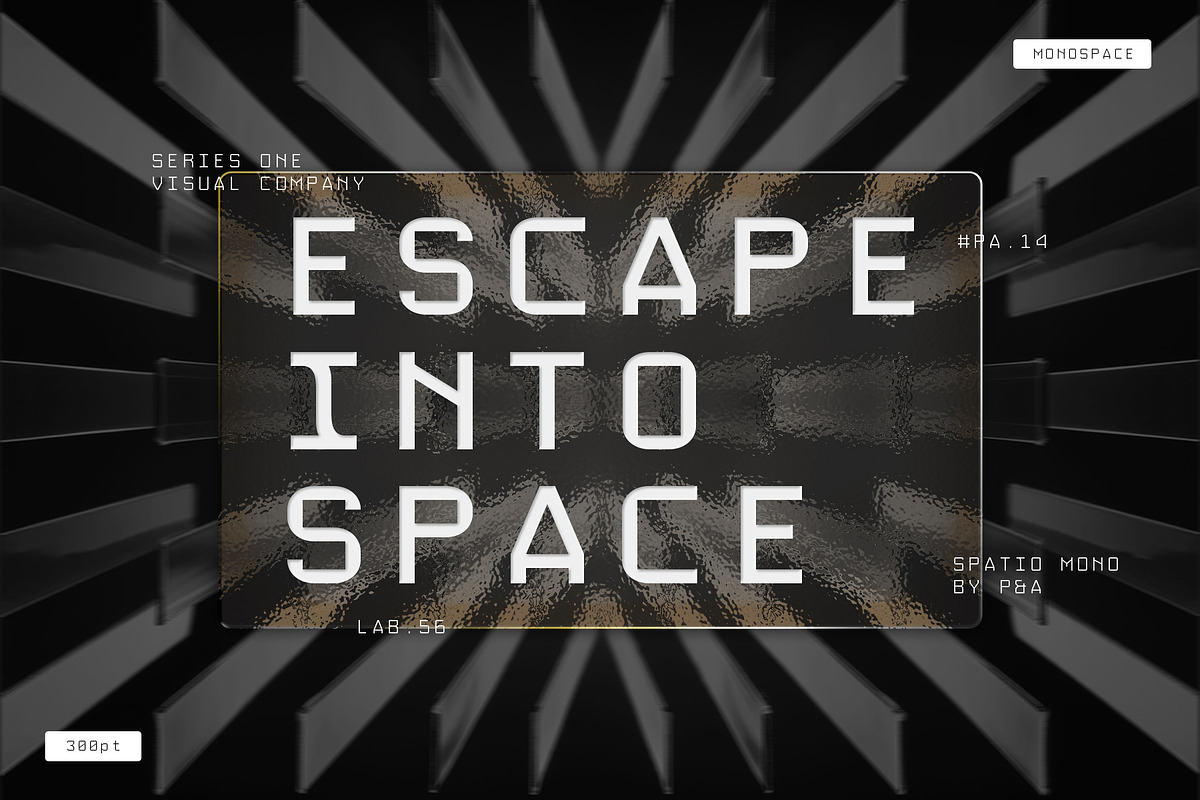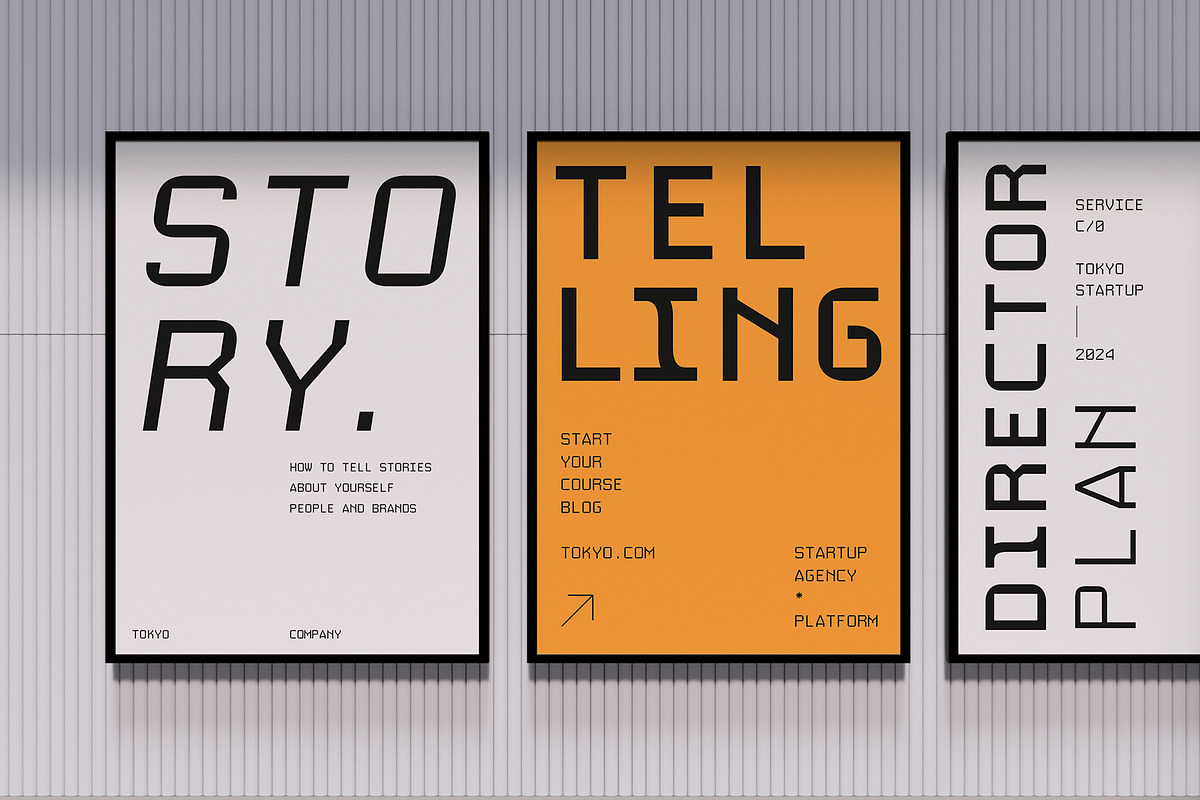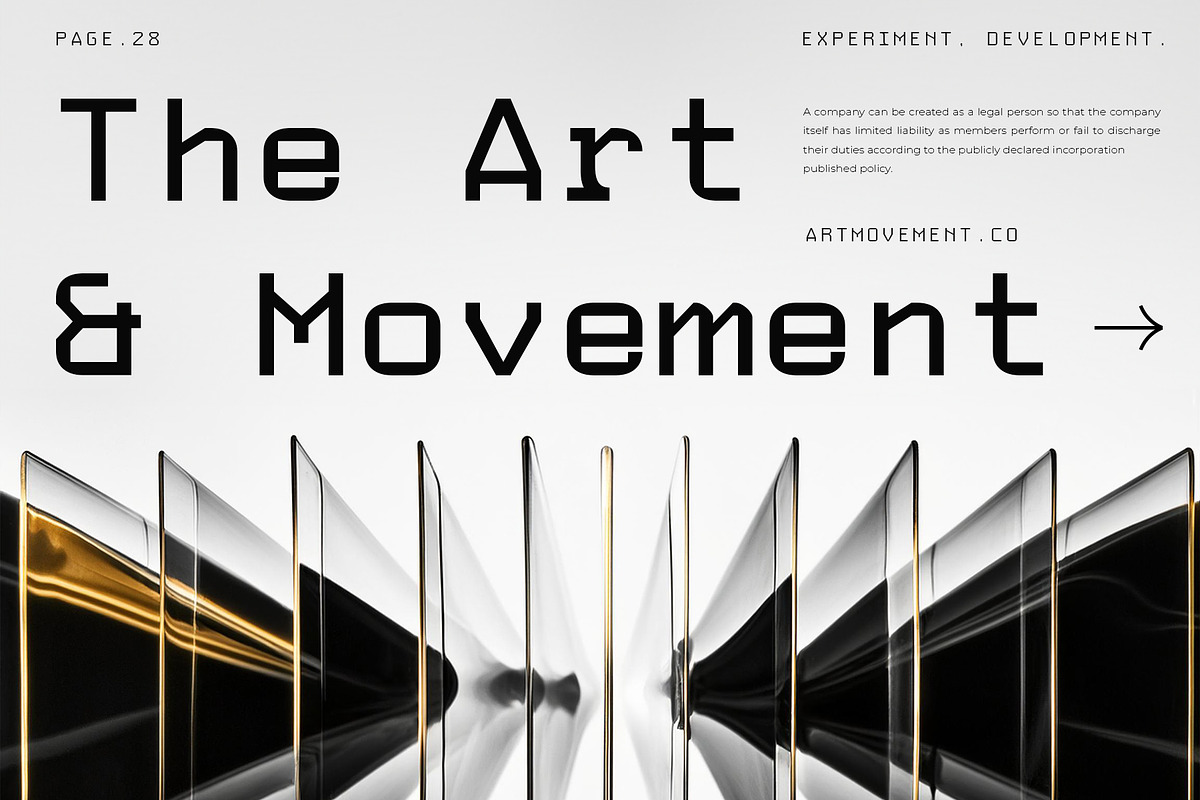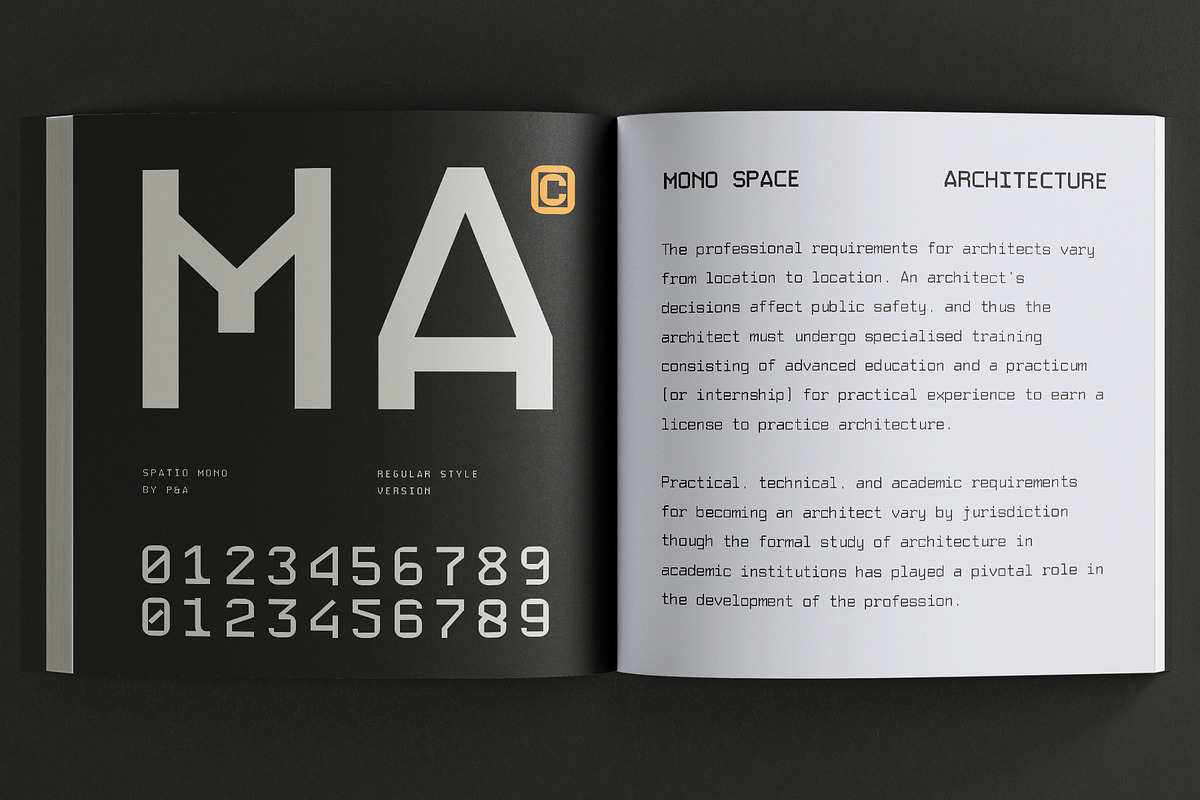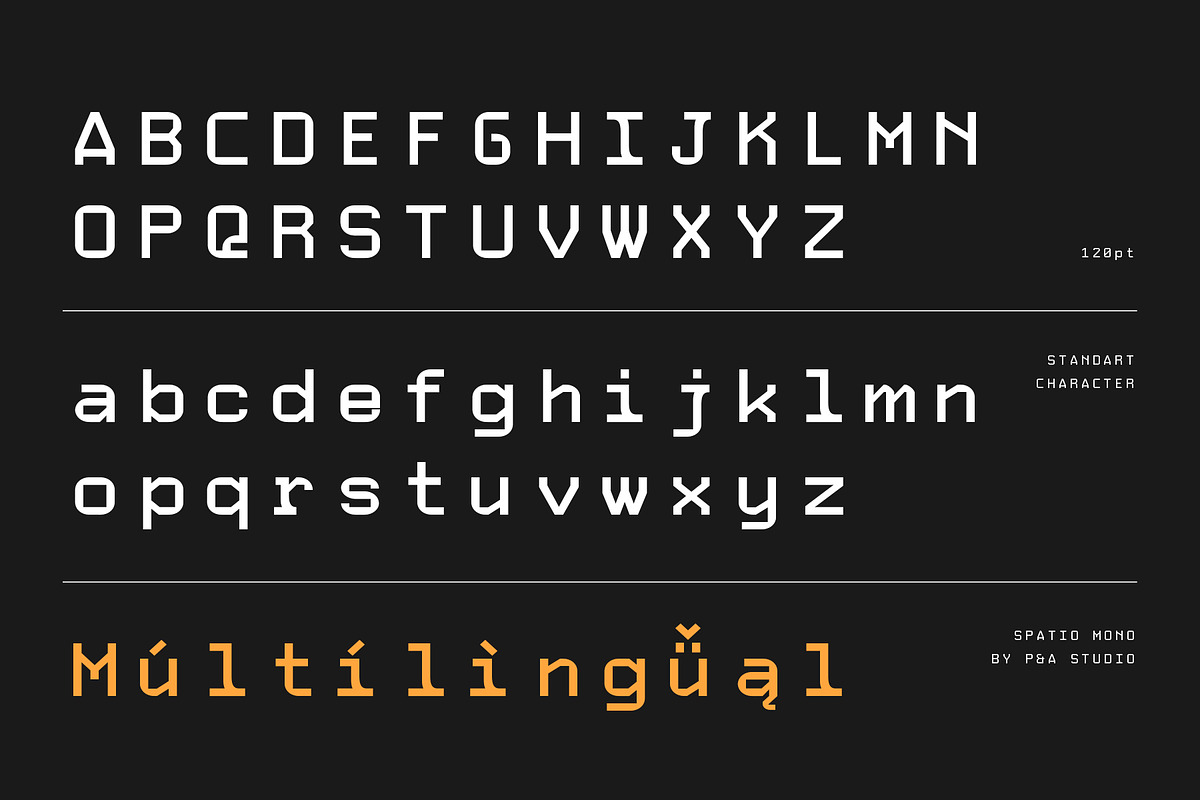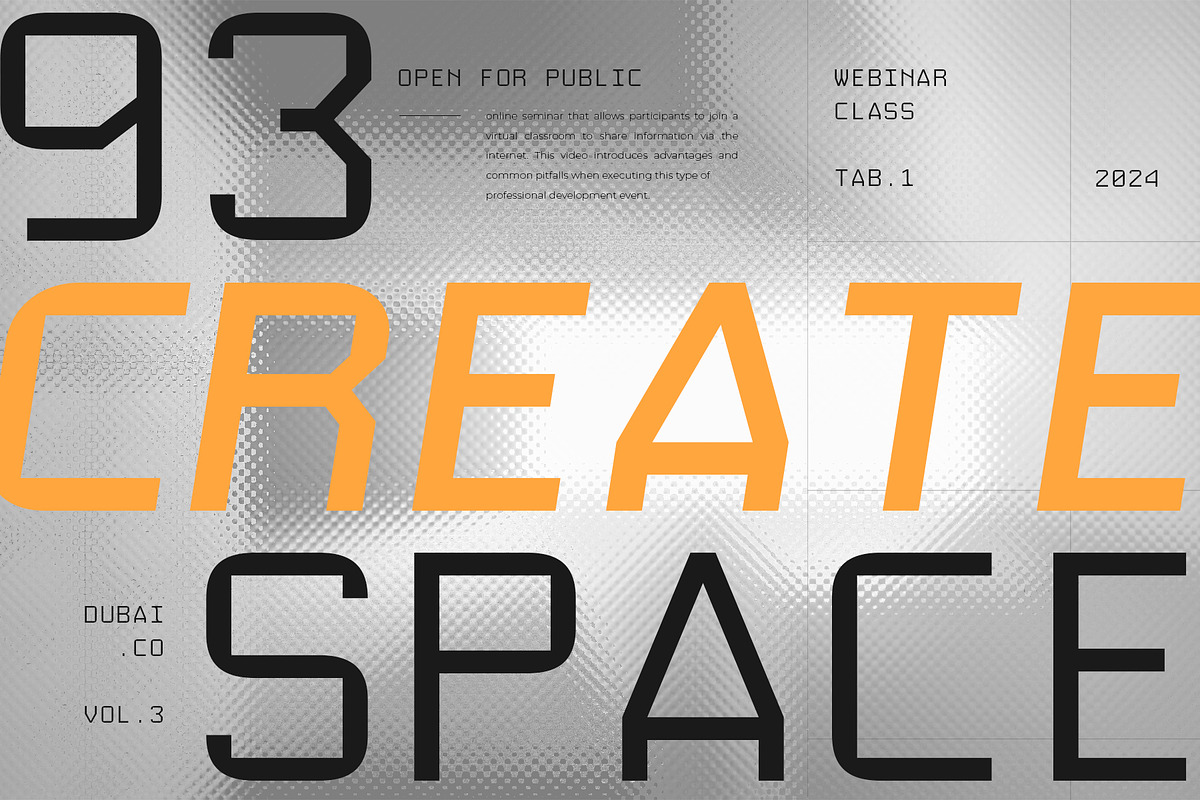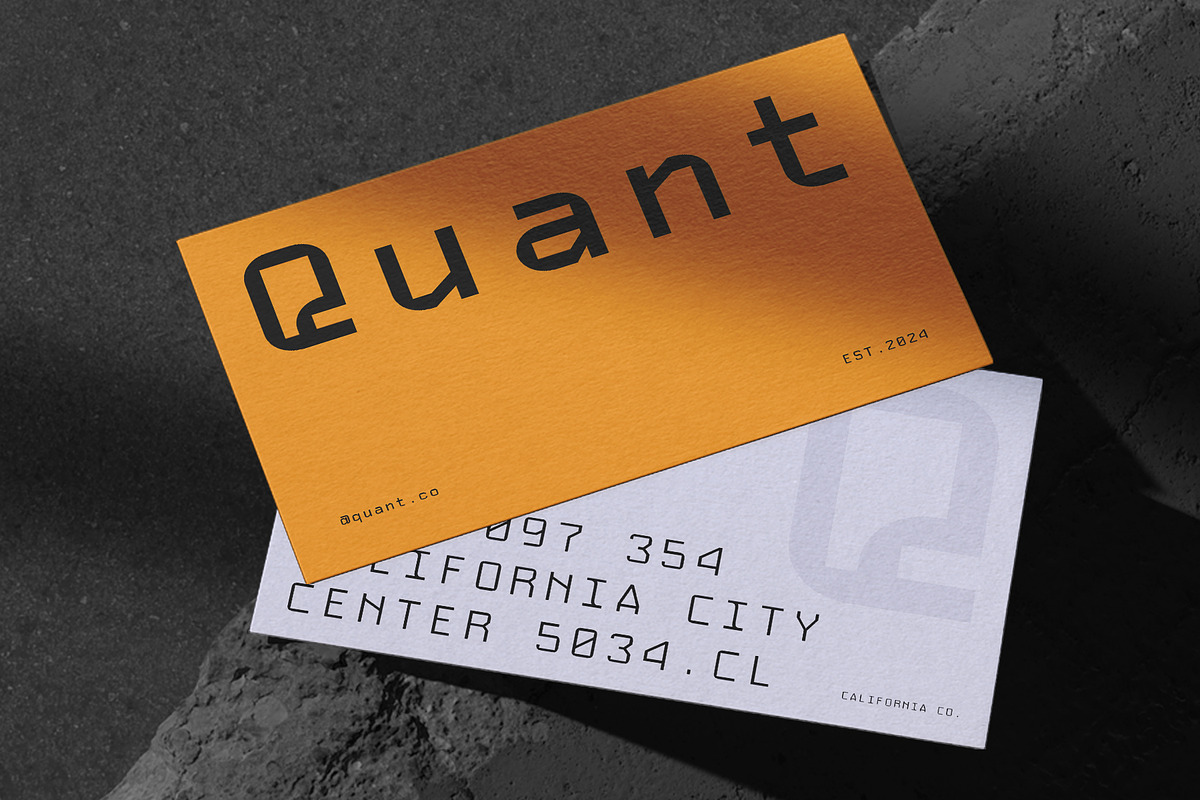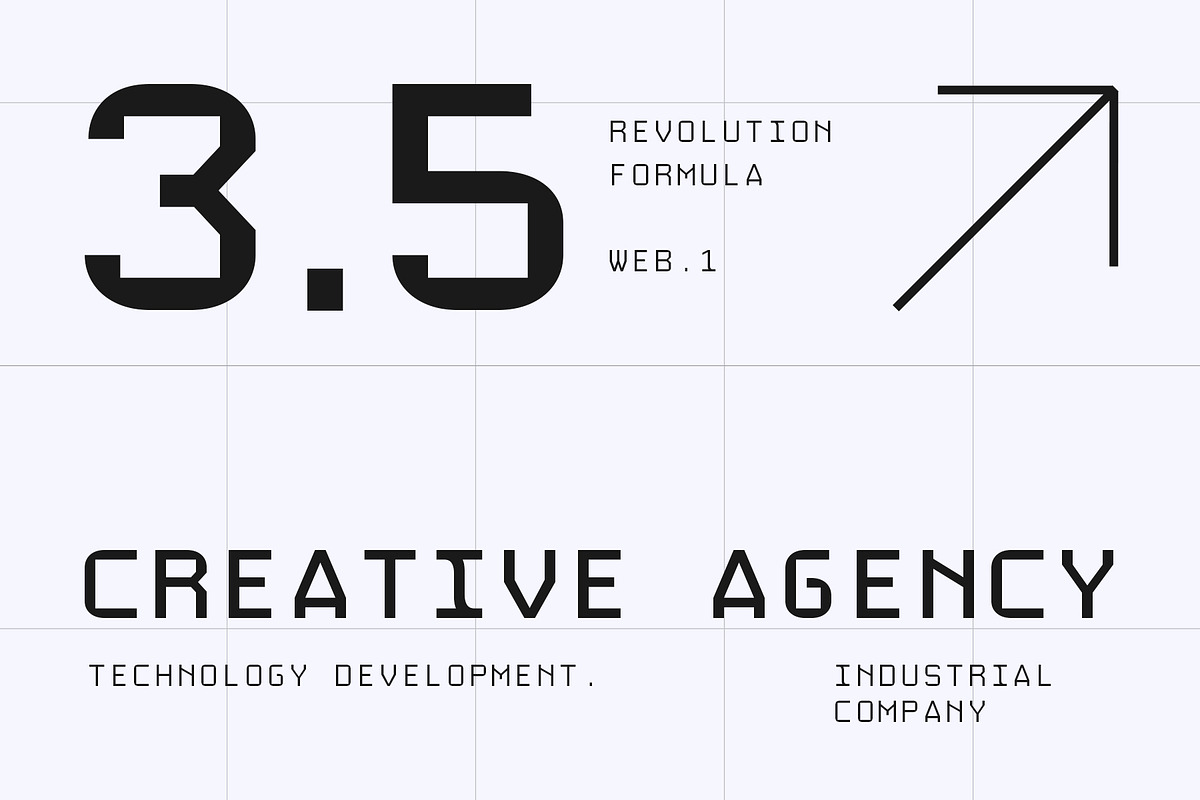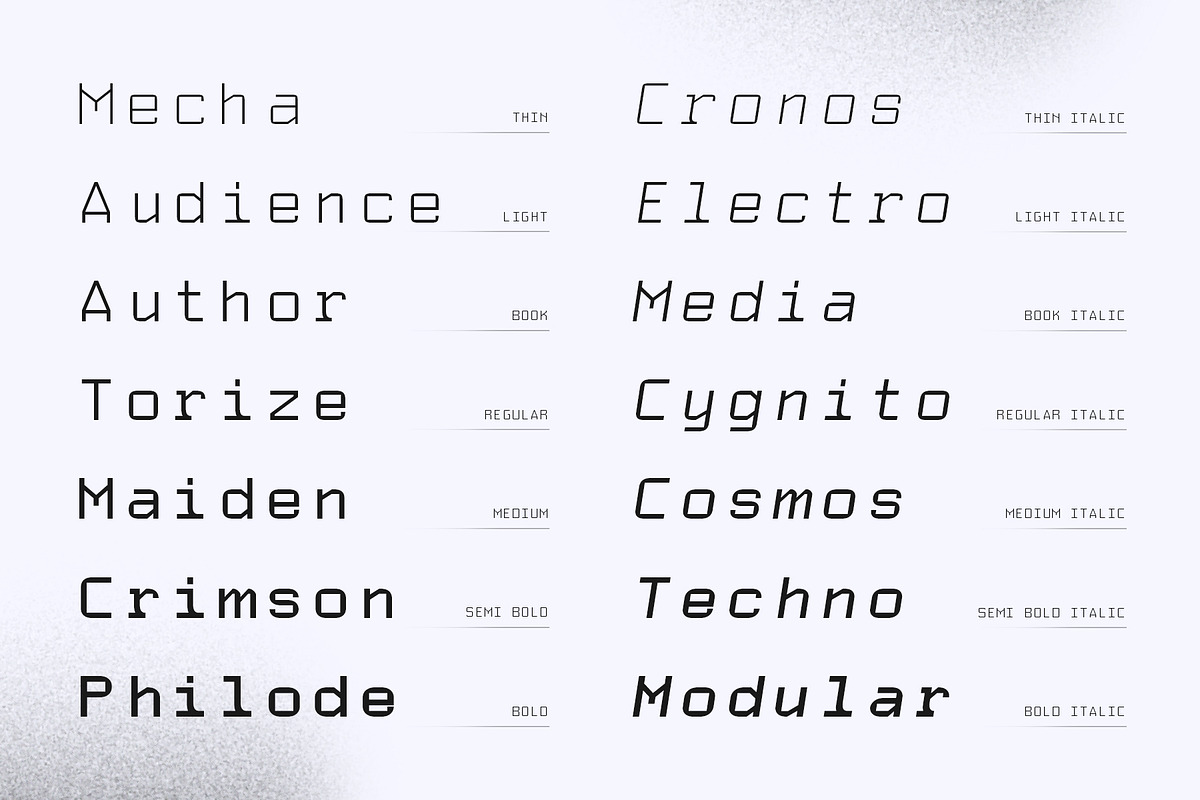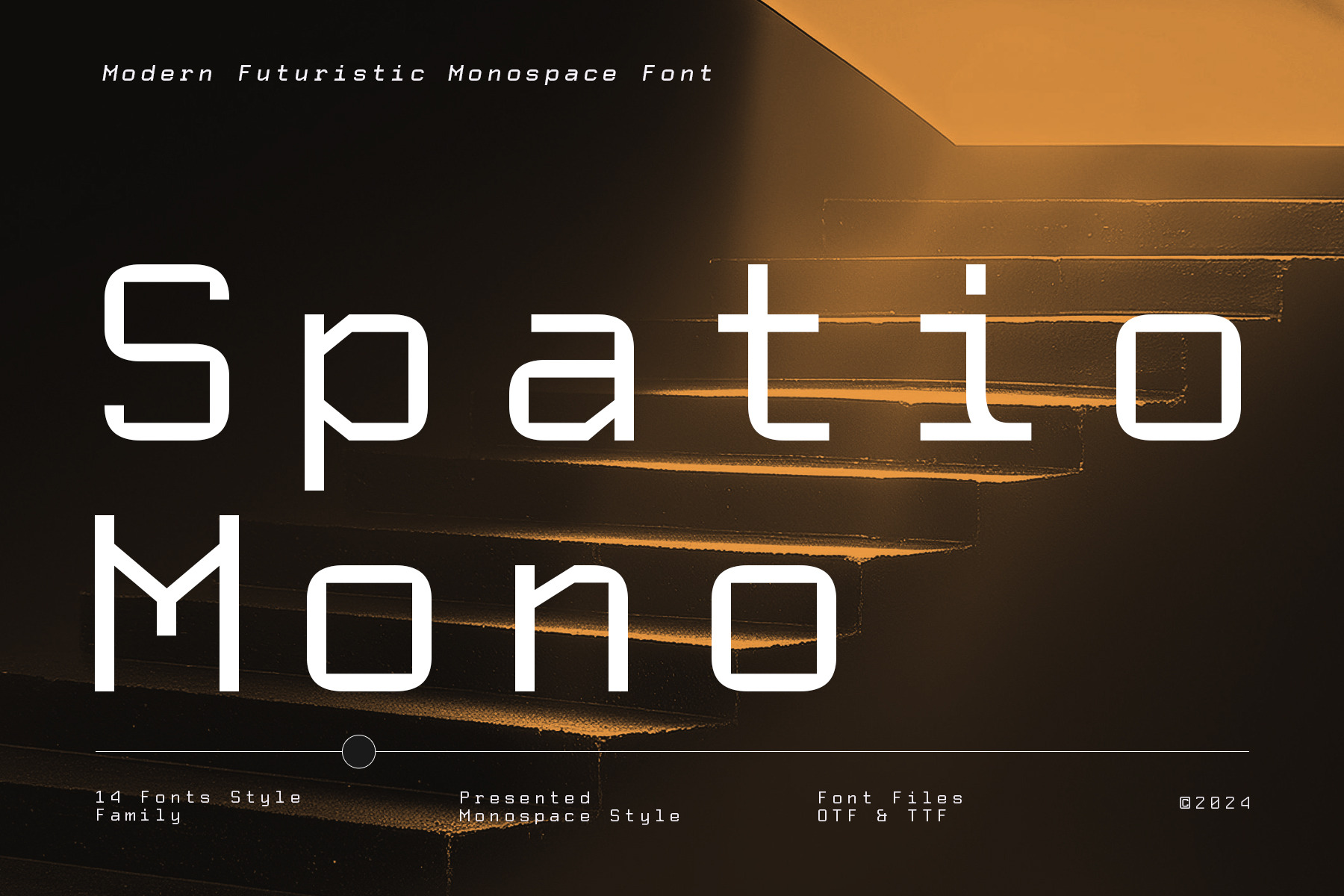
Spatio Mono - Monospace Font
Step into the future with Spatio, a cutting-edge monospace font family inspired by the boundless expanse of space. With 14 distinct styles, Spatio seamlessly blends modernity and futurism to elevate your design projects. Whether you’re coding, designing interfaces, or creating digital art, Spatio offers precision and a sleek aesthetic that stands out in any context. Explore the limitless potential of your creativity with Spatio today!